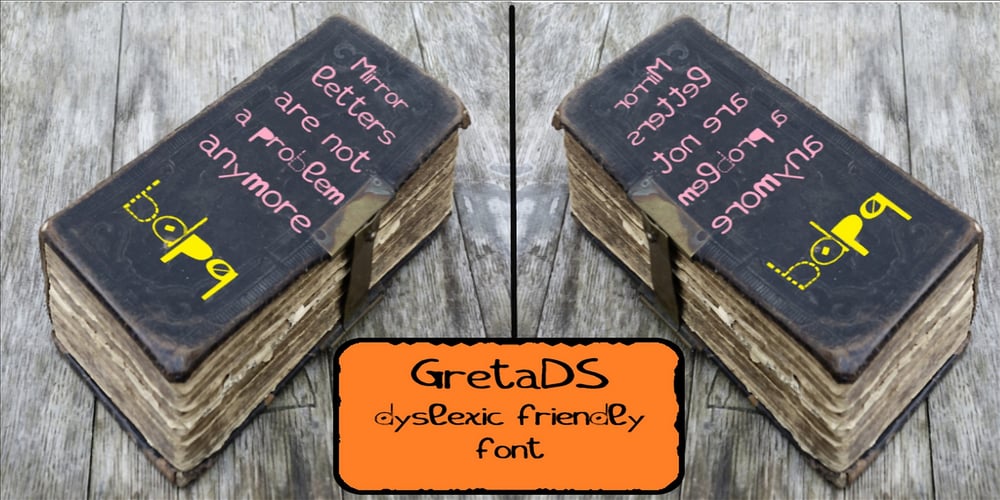
GretaDS Font Family was designed by Alessandro Da Corte and published by FontAle. GretaDS contains 1 styles and family package options. One day, when I was walking with my daughter Greta, I stopped in front of the windowshop of a bookshop, that caught my attention, but Greta was pretty irritated, as always when it comes to books: she is dyslexic. All things written are basically a nightmare for her!So one thing came to my mind: if the great Louis Braille, with visual impairment, invented an instrument that allowed blind people to read, write and play,there had to be a tool that made it easier for dyslexics to do the same things. So, I proposed to Greta to create together a font to help her and other dyslexics. We worked on it, becoming a bit of graphic designers, inventors and guinea pigs at the same time.We brought some initial changes to the mirror letters “pq bd”, based on some examples already available on the market, that improved reading times, strenghtening our willing to go ahead. That’s how “GretaDS” is born, a completely new font, from the “handwritten” family, which marks a difference on the mirror letters, making them easily recognizable, as well as the lowercase couple rn (RN) which can be confused with the letter “m”, not to mention the capital “I” (vowel i) indistinguishable from the lowercase “l” (L)We hope, that other graphic designers will follow its flow, modify and improve the path, and make the most of its energy, to offer dyslexics a tool that make reading as easy as drinking a glass of water.